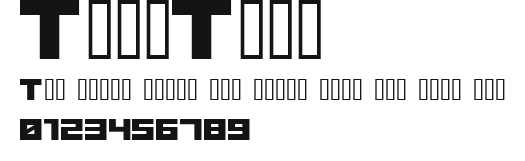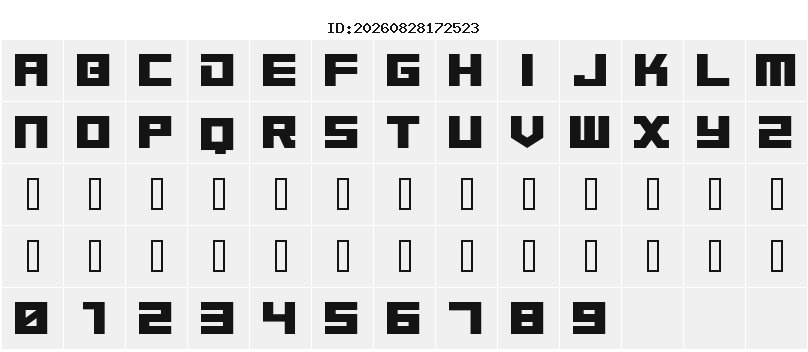
TimeTrek Preview
• Font Name: TimeTrek
• Full Font Name: TimeTrek
• PostScript Name: TimeTrek
• Character Count: 54
About TimeTrek.ttf
TimeTrek.ttf is a modern, elegant sans-serif font designed for ultimate readability and visual harmony. Perfect for branding, headlines, web design, and print materials.